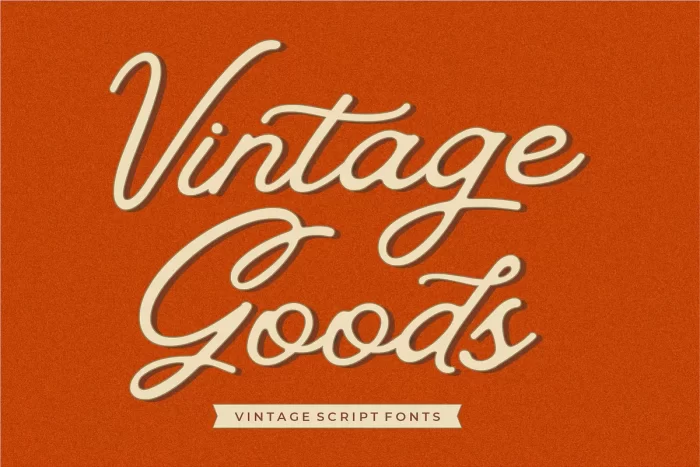
Vintage Goods Font
Vintage Goods Fonts was inspired by the 1980s, a period that rediscovered and reconsidered calligraphy as a type face, as well as photography and human emotions. The goal was to take the simple but effective designs from this era. This fonts are great for product logo,wedding card logo, clothing brand logo, Vintage design and much more.
• Ton of glyphs
• Ligatures & Alternates